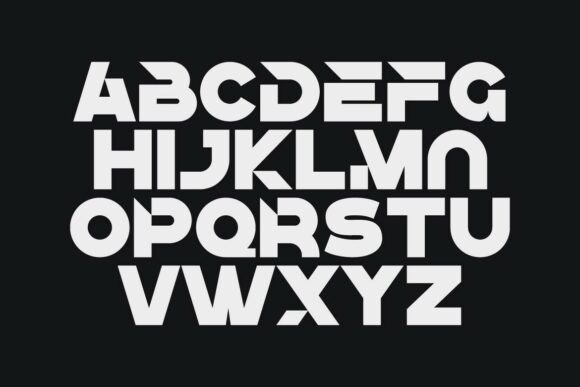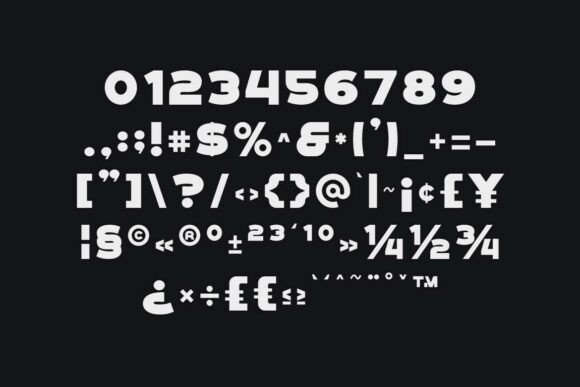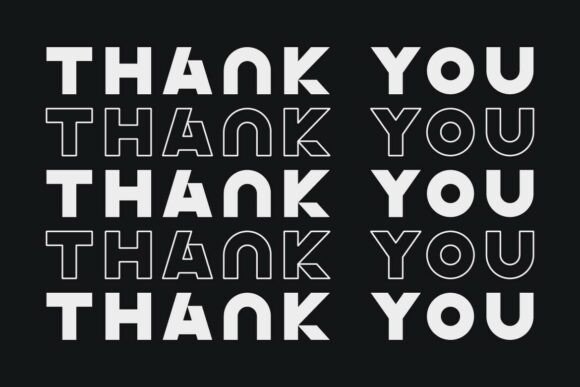
Introduction to Komata Font
Komata is a bold display typeface designed to create strong, confident, and modern visual impact.
With solid letterforms, clean geometry, and balanced proportions, Komata delivers powerful typography that stands out in any composition .